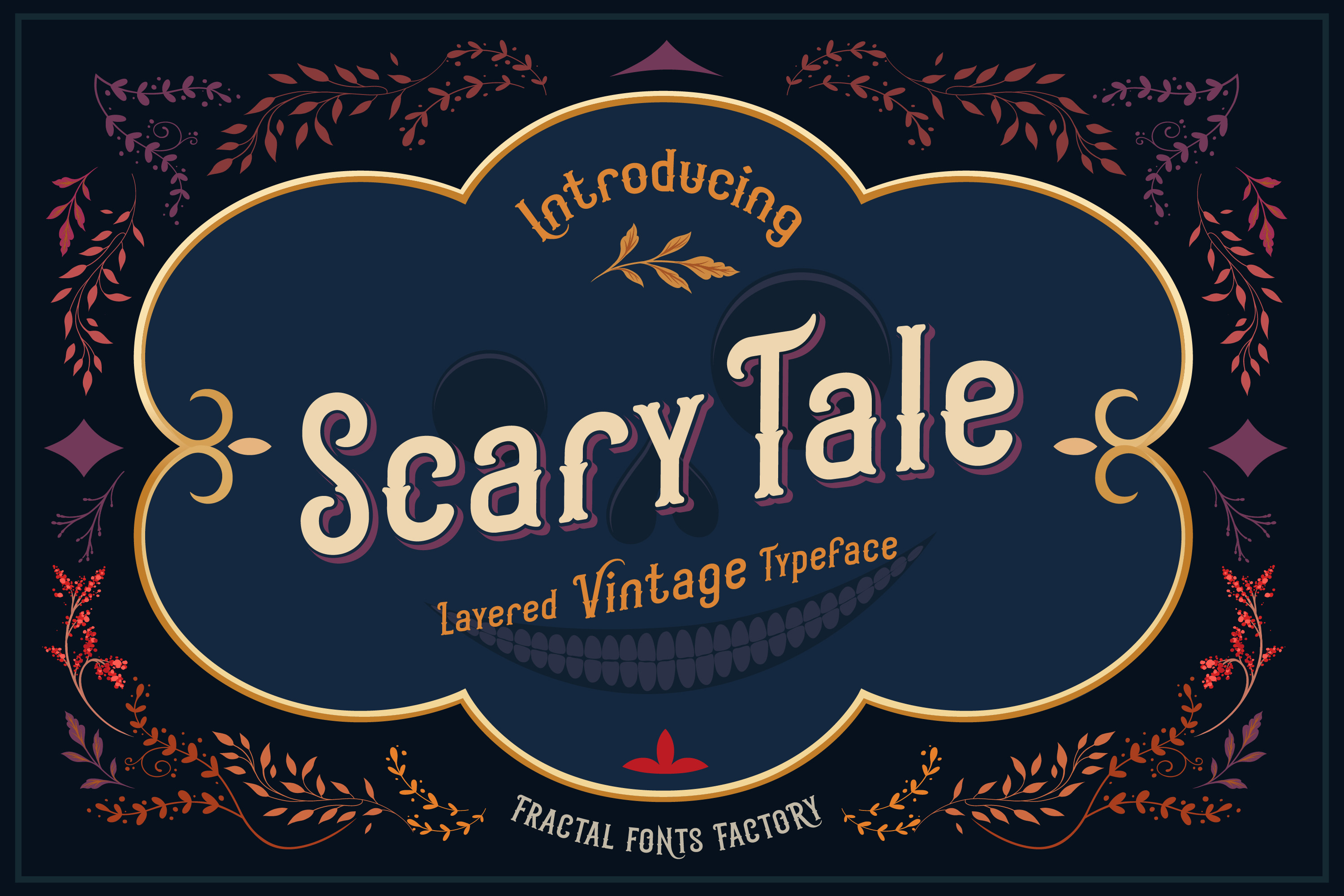
Scarytale - vintage layered font
I present to your attention a new font - Scarytale I had a desire to make a vintage style with a cute but scary story. It is a multi-layered, multilingual vintage typeface that works well for fabulous books, T-shirts and logos. Included 6 t-shirt designs and 3 font styles!